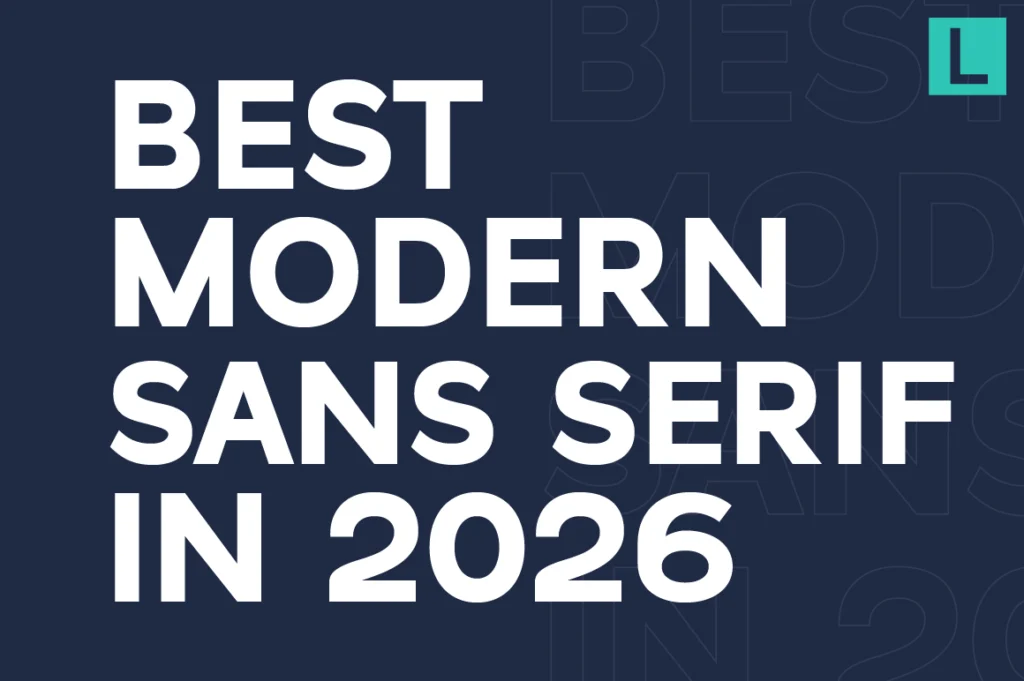
Best Modern Sans Serif Fonts for Branding (Clean & Premium Picks 2026)
Best Modern Sans Serif Fonts for Branding (Premium Picks 2026)
In today’s branding landscape, modern sans serif fonts have become the foundation of clean, premium visual identity. From startups to global companies, brands are moving away from overly decorative typefaces and choosing clarity, simplicity, and precision.
But not all sans-serif fonts feel premium.
The difference lies in subtle details—proportions, spacing, and overall balance. A well-crafted modern sans serif can instantly elevate your brand, while a generic one can make it feel forgettable.
Why Modern Sans Serif Fonts Dominate Branding
Modern brands prioritize versatility. Your typography needs to work across logos, websites, mobile apps, and social media—without losing consistency.
Sans-serif fonts offer:
• Clean and distraction-free appearance
• High readability across all screen sizes
• Strong adaptability for digital and print
• A timeless yet contemporary feel
This is why industries like tech, fashion, and startups heavily rely on them.
What Makes a Sans Serif Font Feel Premium
Not every clean font is premium. Here’s what separates high-quality fonts from average ones:
1. Balanced Proportions
Premium fonts have carefully designed letterforms that feel stable and visually pleasing.
2. Refined Spacing (Kerning & Tracking)
Good spacing creates rhythm. Poor spacing makes even a good font feel cheap.
3. Consistent Stroke Logic
A strong internal system across all characters ensures harmony.
4. Subtle Personality
Premium fonts don’t scream—they communicate quietly but confidently.
Best Modern Sans Serif Fonts from Lettertype Studio
If you’re looking for fonts that combine clarity with strong branding presence, these are solid picks:
• Raela Pro — clean, geometric, and highly versatile
• Lenia Sans — modern with a soft humanist touch
• Naru Sans — minimalist and highly readable
• Vynce Sans — sharp and contemporary branding feel
• Alvara Sans — structured, corporate-ready aesthetic
Each of these fonts is designed not just to look good, but to perform across real branding use cases.
When to Use Modern Sans Serif Fonts
Modern sans-serif fonts work best for:
• Logo design
• Brand identity systems
• UI/UX interfaces
• Editorial layouts
• Social media branding
They are especially effective when you want your brand to feel:
• Professional
• Clean
• Modern
• Trustworthy
Final Thoughts
Choosing the right font is not just about style—it’s about perception.
A strong modern sans serif font can make your brand look more established, more premium, and more intentional. In a crowded visual world, simplicity done right is what stands out.
If you’re building a brand that needs to feel relevant today and still strong years from now, modern sans serif is the safest—and smartest—direction.